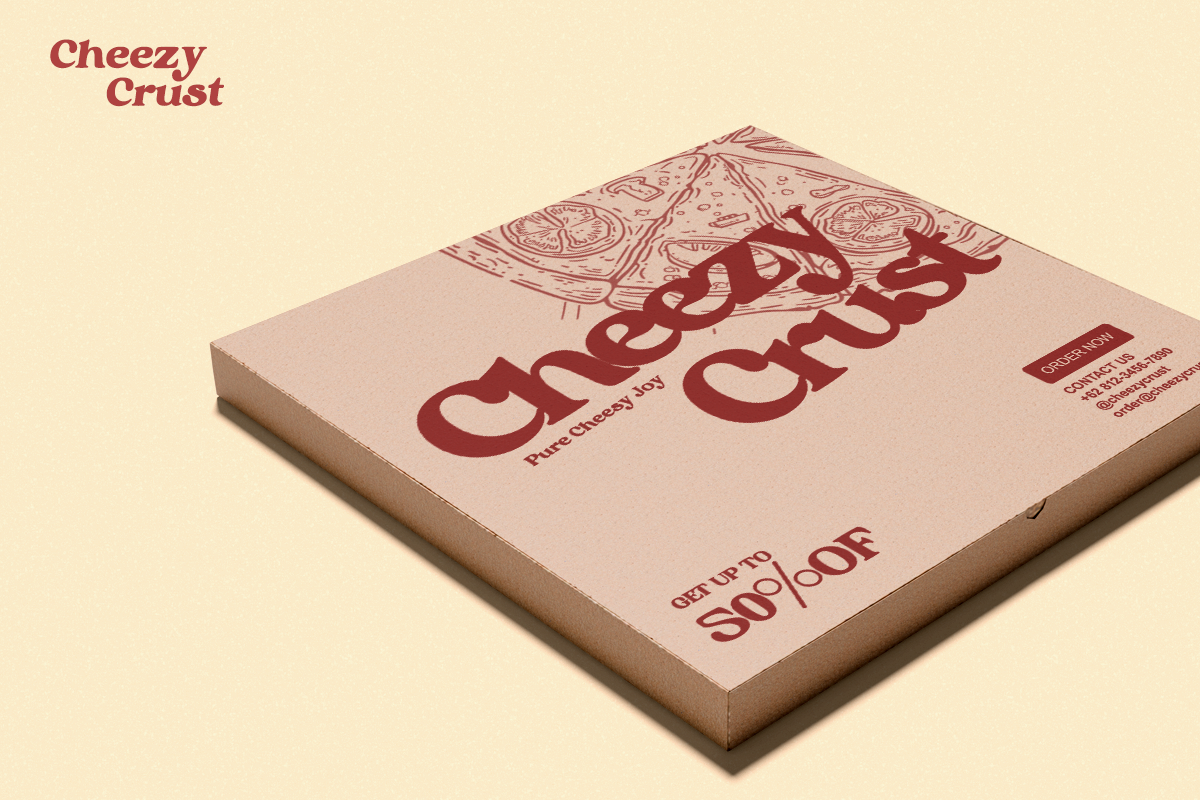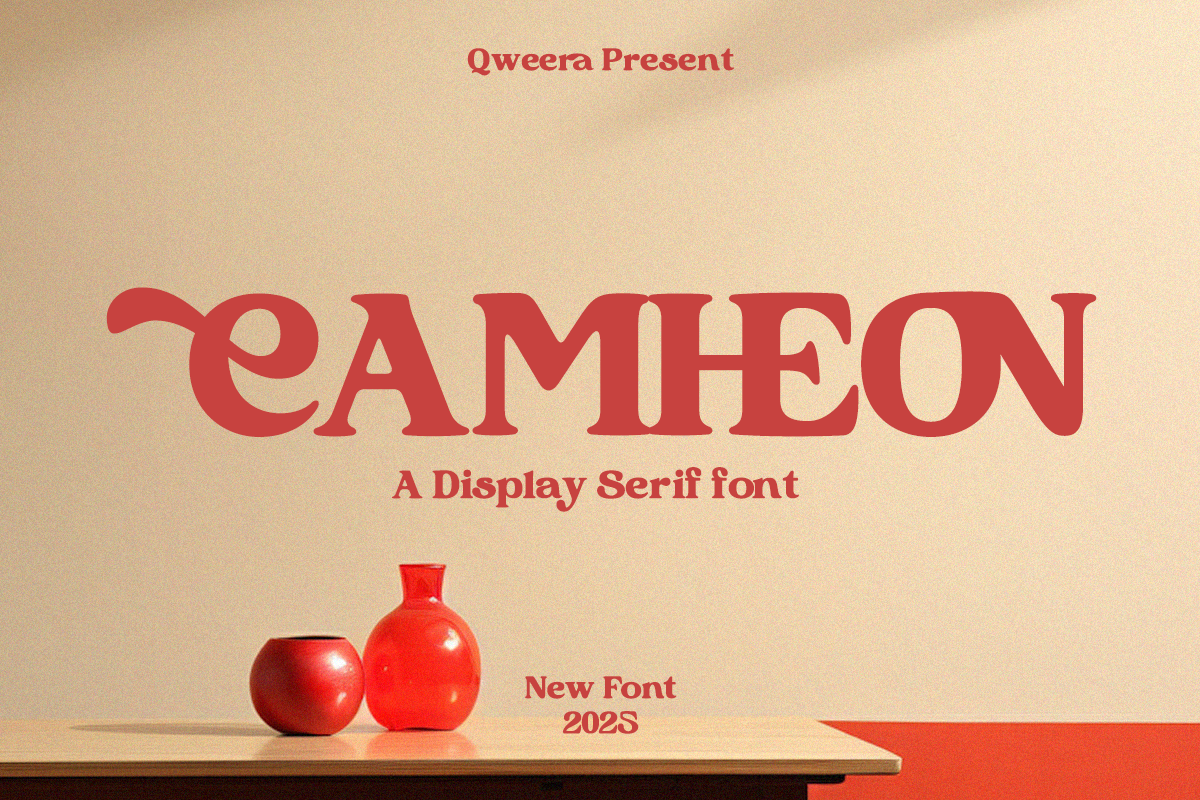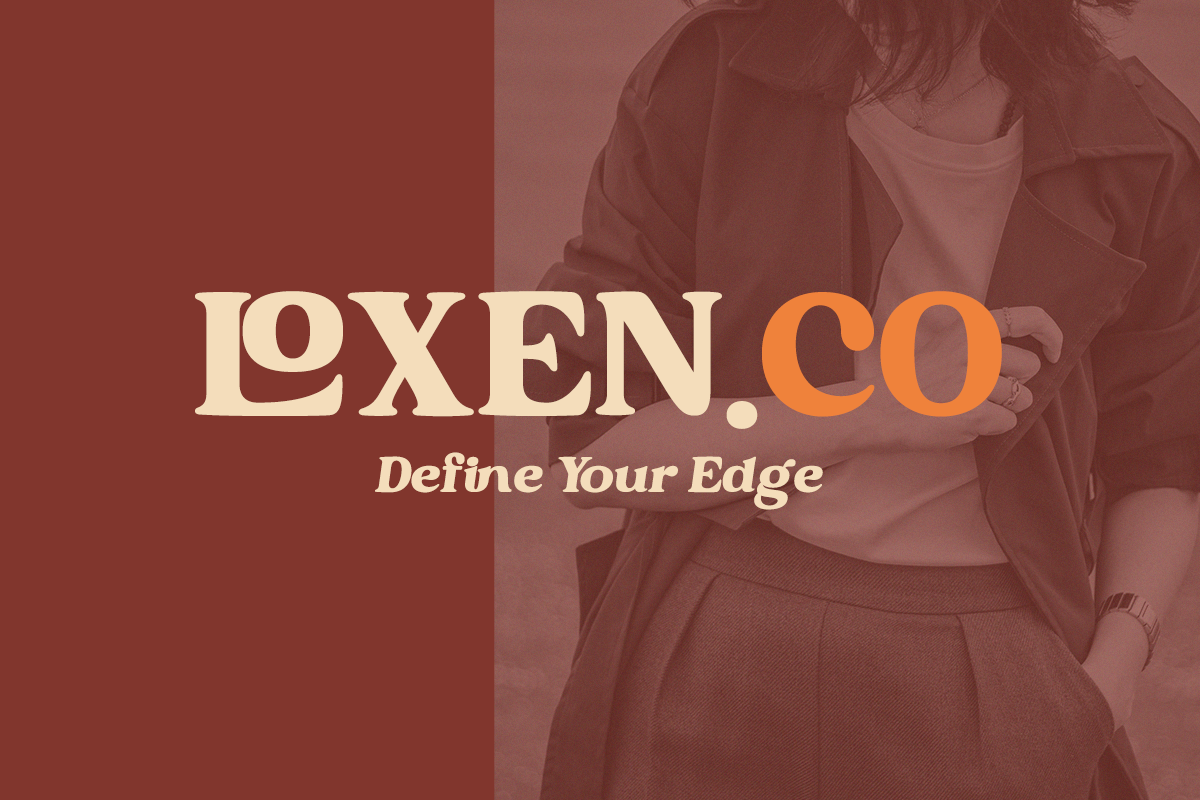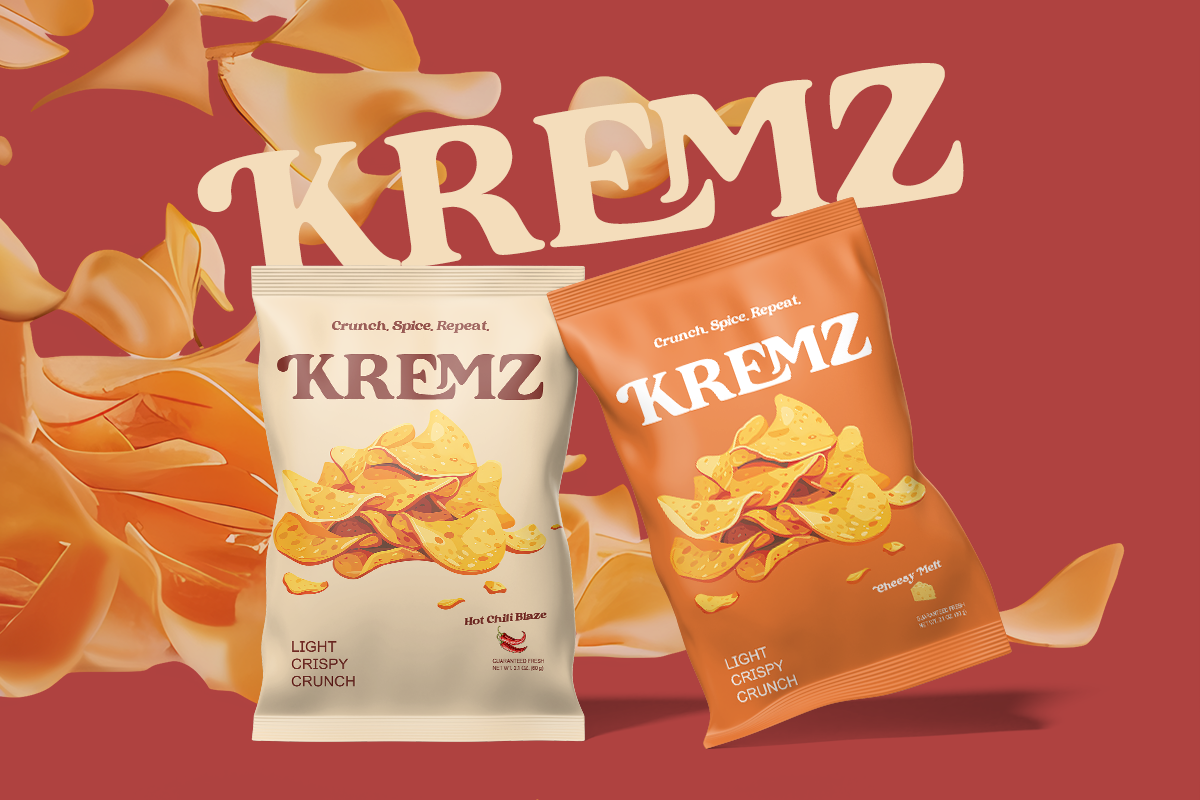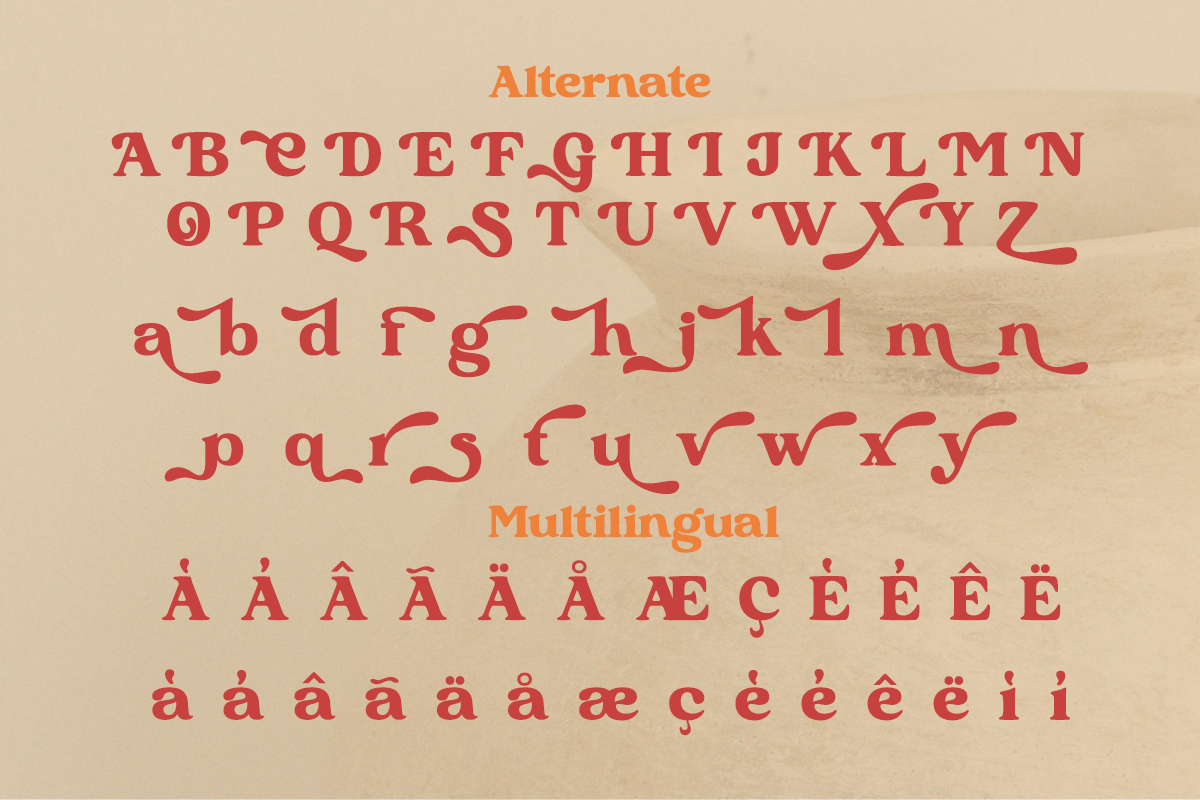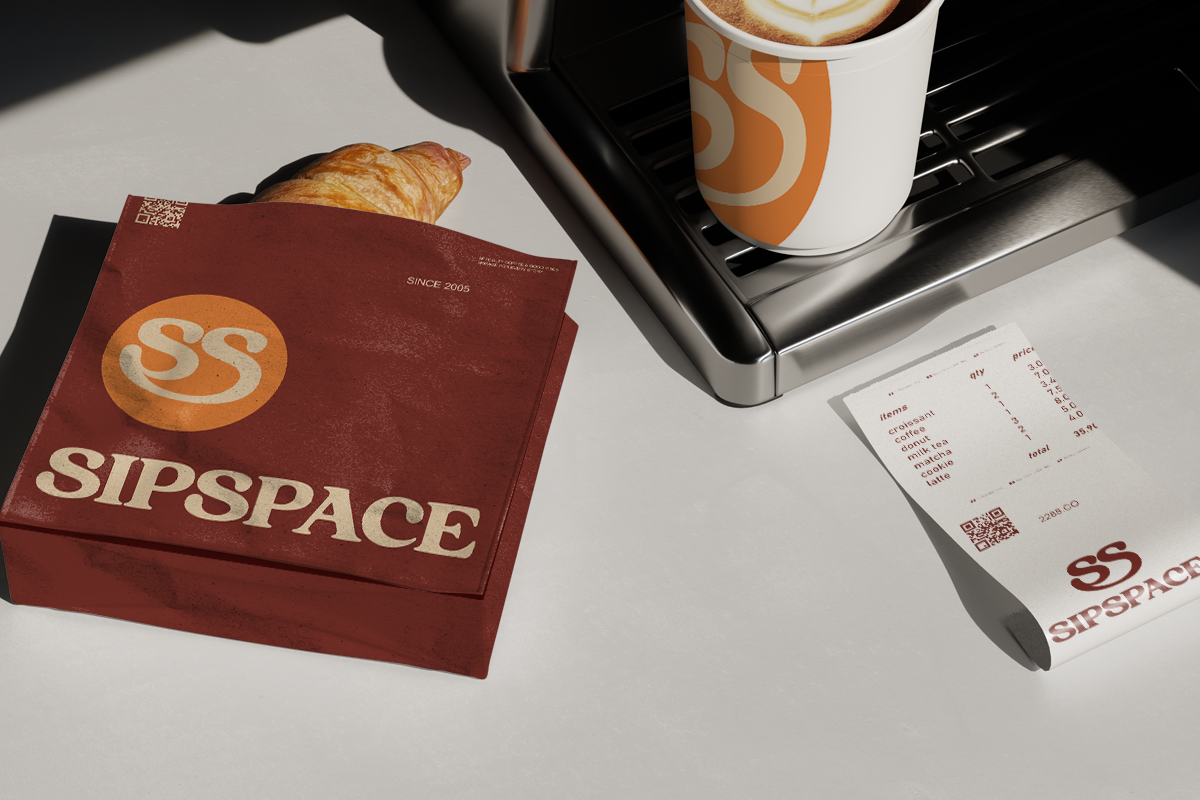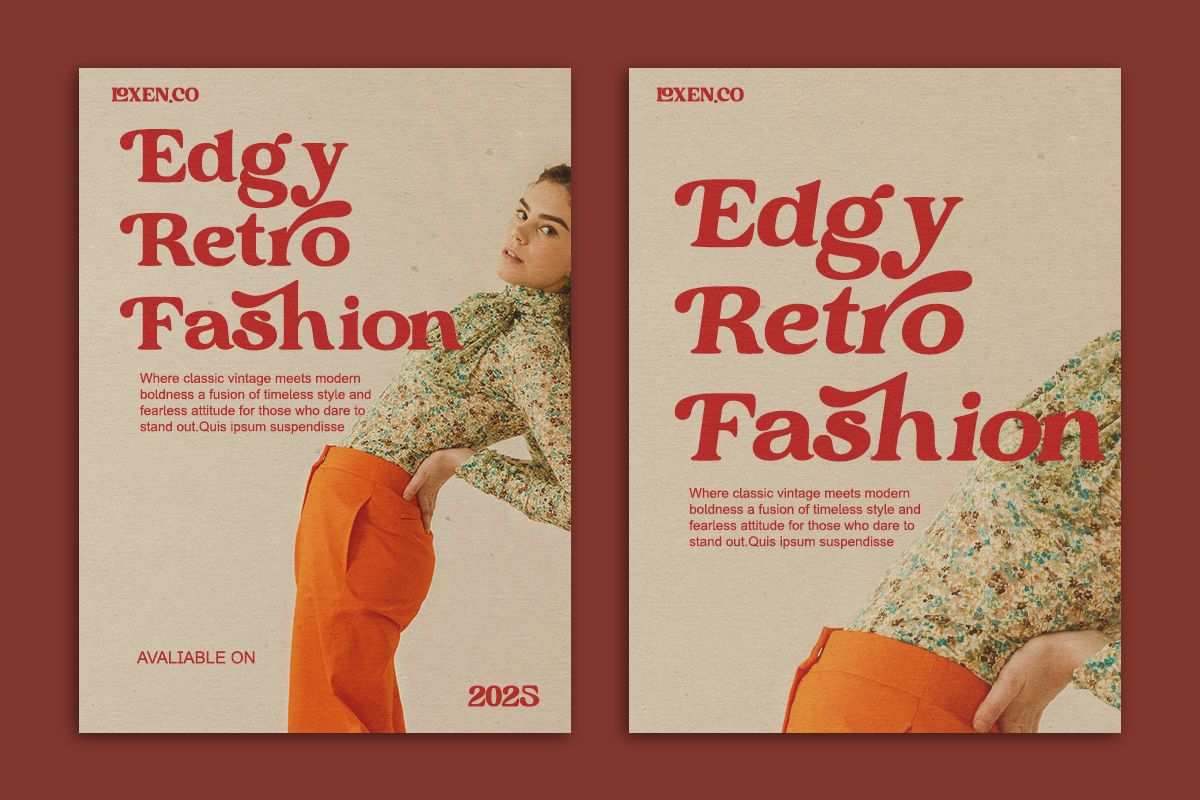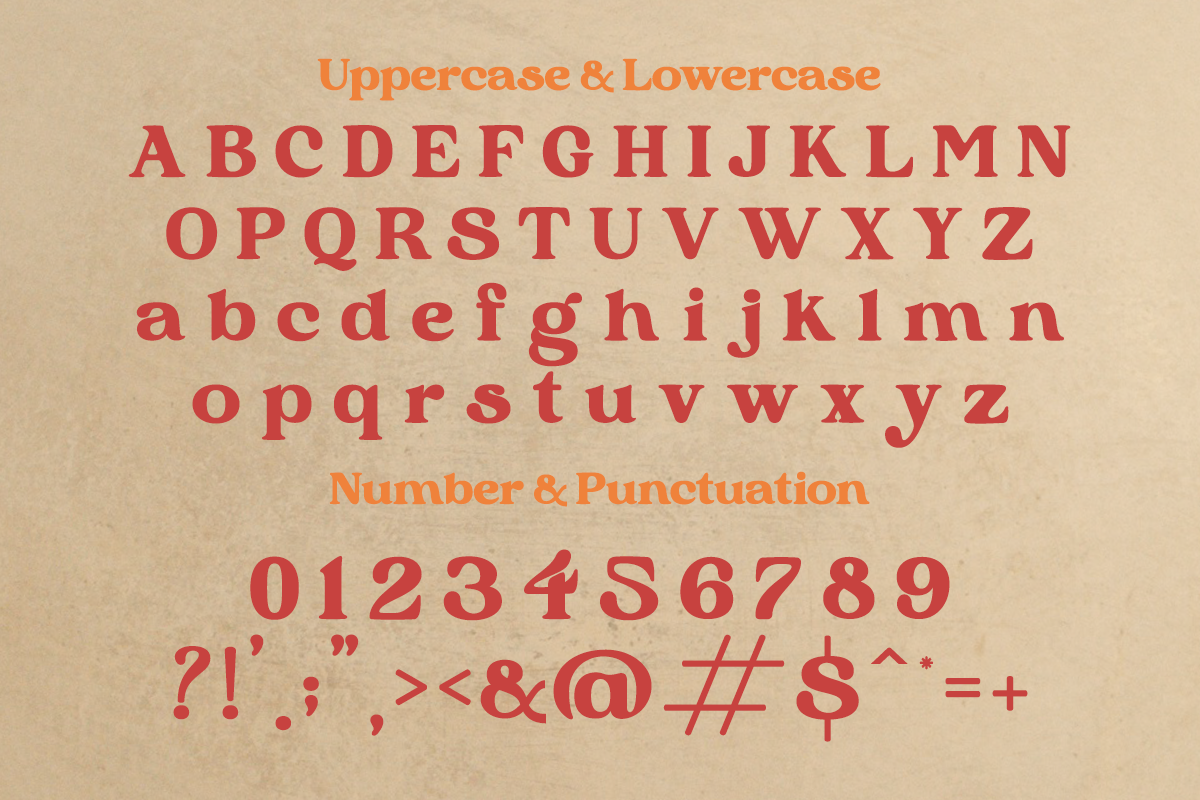
Camheon - Bold Display Serif Font
Meet Camheon, a bold display serif font built to stand out. With its confident shapes and classic serif style, Camheon is ideal for posters, headlines, logos, and branding projects that need a strong visual voice.
This font balances vintage charm with modern clarity, making it versatile and impactful.
- Regular & Italic
- Bold display style
- Clean serif details
Perfect For Posters, magazine headlines, branding, logos, packaging, editorial layouts, and marketing visuals.